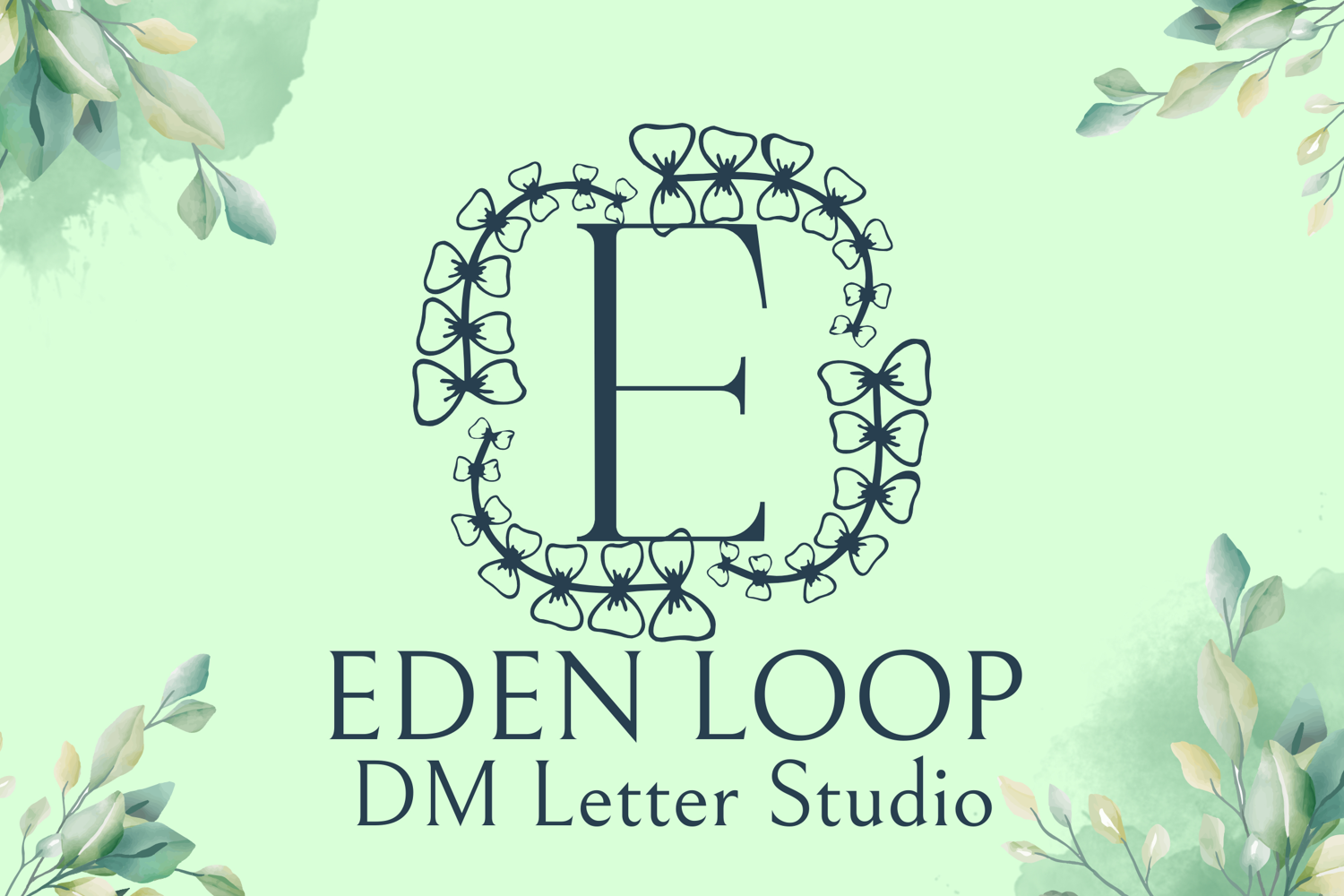
Eden Loop Monogram - Elegant Swirly Monogram Serif Font
Eden Loop Monogram
Eden Loop Monogram – Elegant Swirly Monogram Serif Font
Eden Loop Monogram is a sophisticated serif font featuring graceful loops and ornamental curves that evoke timeless elegance. Each uppercase letter is adorned with delicate flourishes, making it ideal for creating luxurious monograms, signature logos, wedding branding, and refined custom projects. With its classic base and artistic loops, this font delivers a perfect blend of tradition and charm.
• Looped Serif Style: Decorative curves and loops elevate each capital letter with graceful sophistication.
• Timeless Elegance: Designed to exude charm and refinement for upscale monogram designs.
• Perfect for Customization: Ideal for initials, name-based logos, and romantic typography.
• Ideal For: Wedding stationery, boutique branding, custom gifts, luxury packaging, and editorial titles.